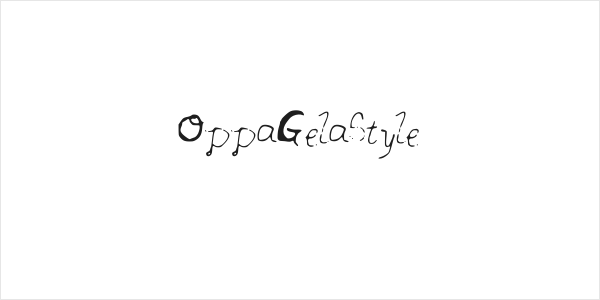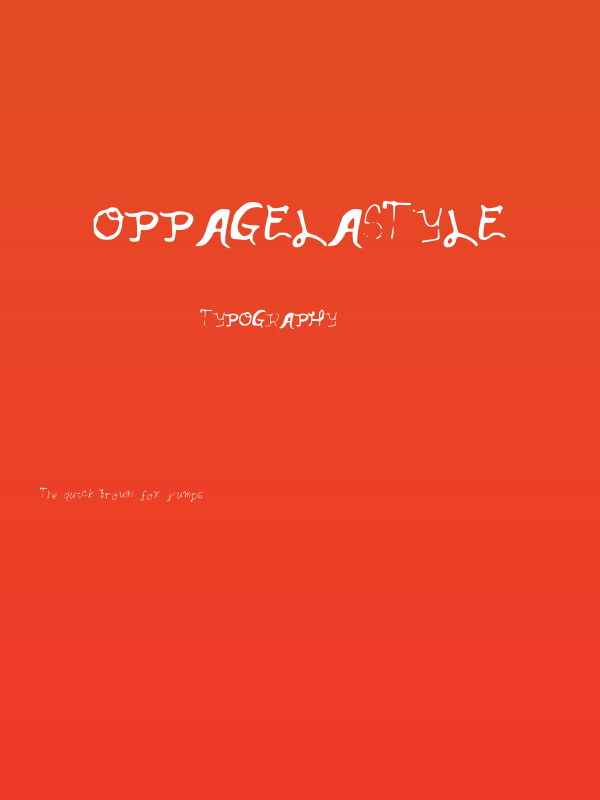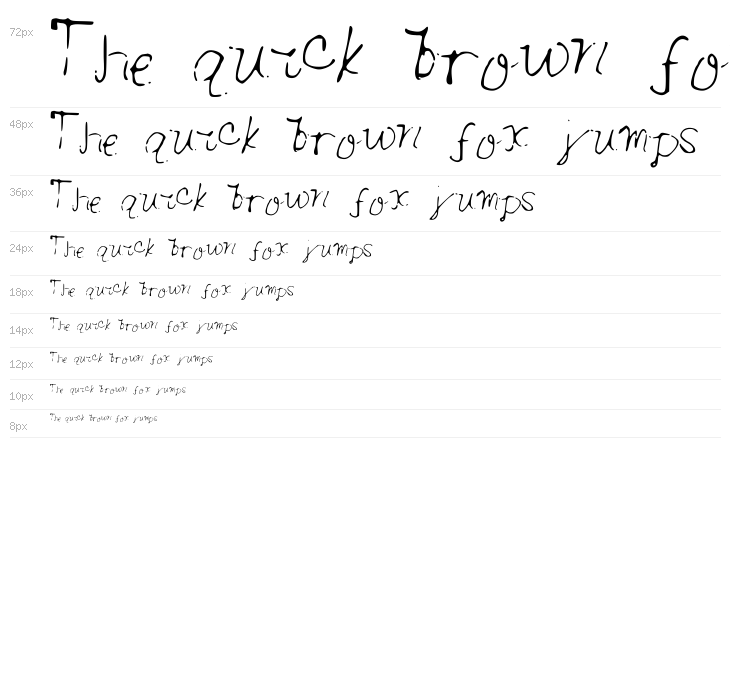
OppaGelaStyle Font
OppaGelaStyle Description
This font features a unique blend of bold and flowing strokes, creating a dynamic and artistic appearance. The uppercase letters are bold with a slight slant, giving them a sense of movement and energy. The lowercase letters are more fluid, with varying stroke thickness that adds a handwritten feel. The numbers and special characters maintain this artistic style, with some characters featuring playful loops and curves. Overall, the font exudes a casual yet sophisticated vibe, making it suitable for creative and expressive projects.
| Overall Style | Artistic and Casual |
| Use Case | Headlines, Logos, Creative Projects |
| Proposed Projects | Ideal for creative projects such as posters, invitations, and branding materials where a casual yet sophisticated look is desired. |